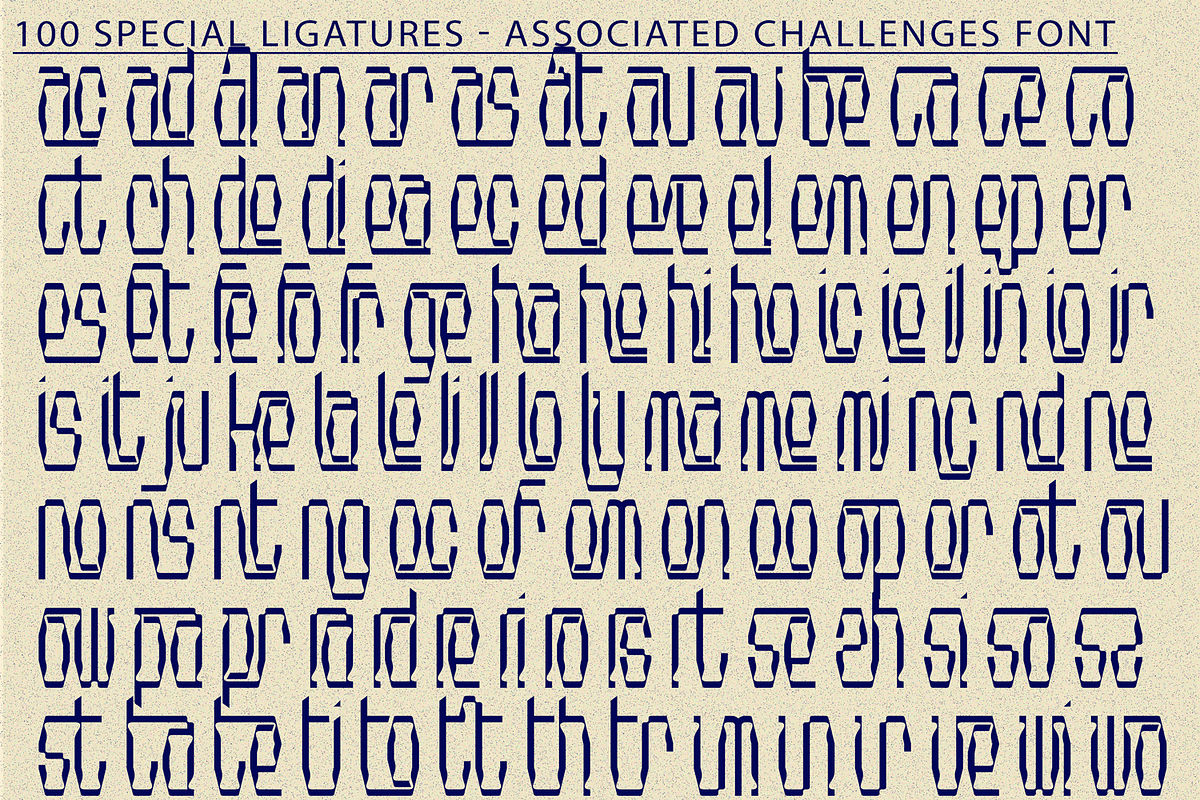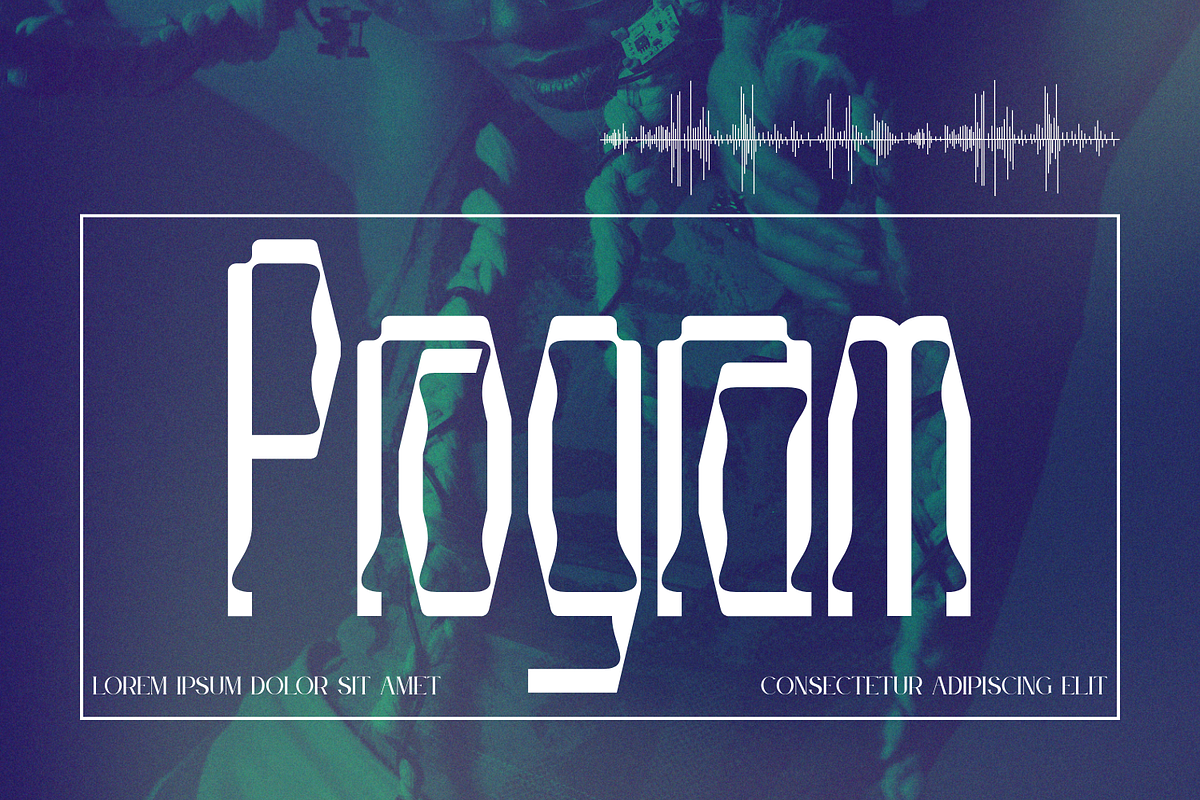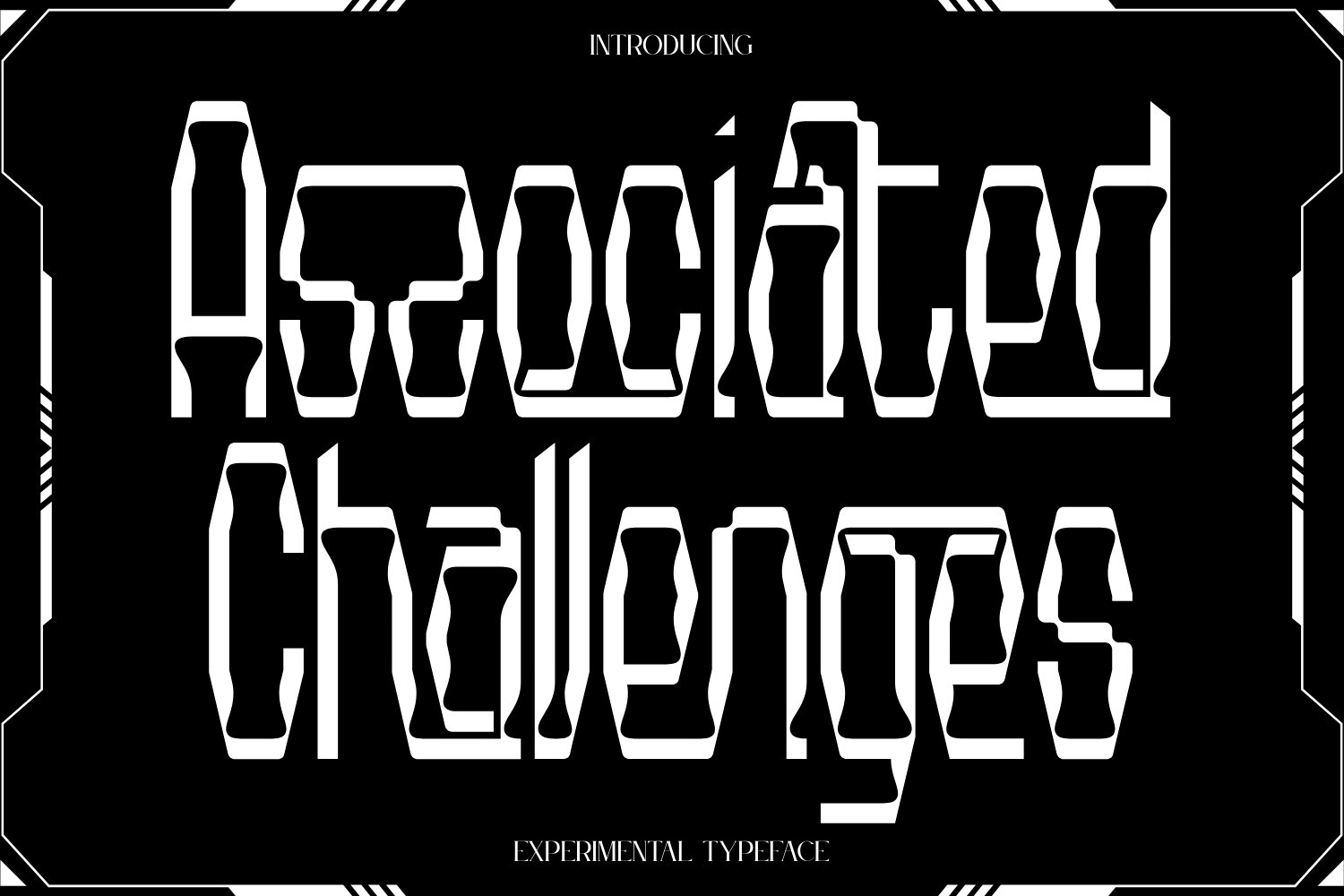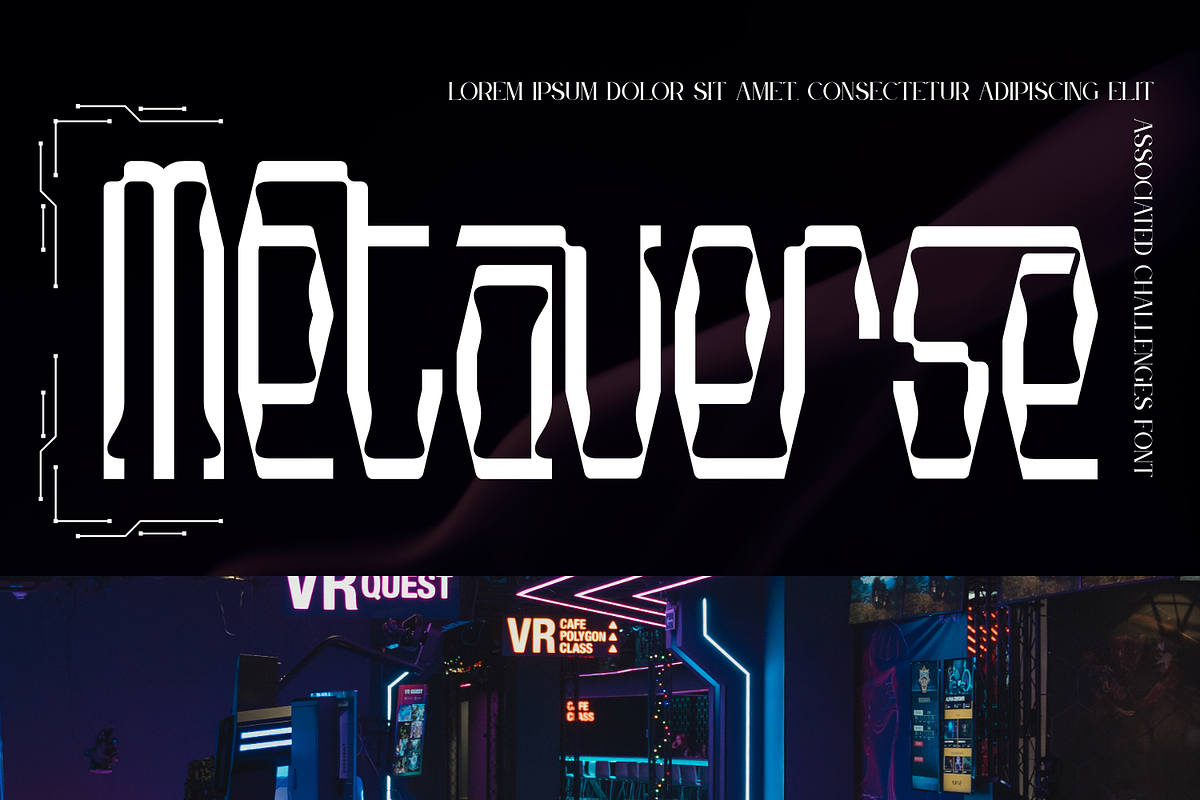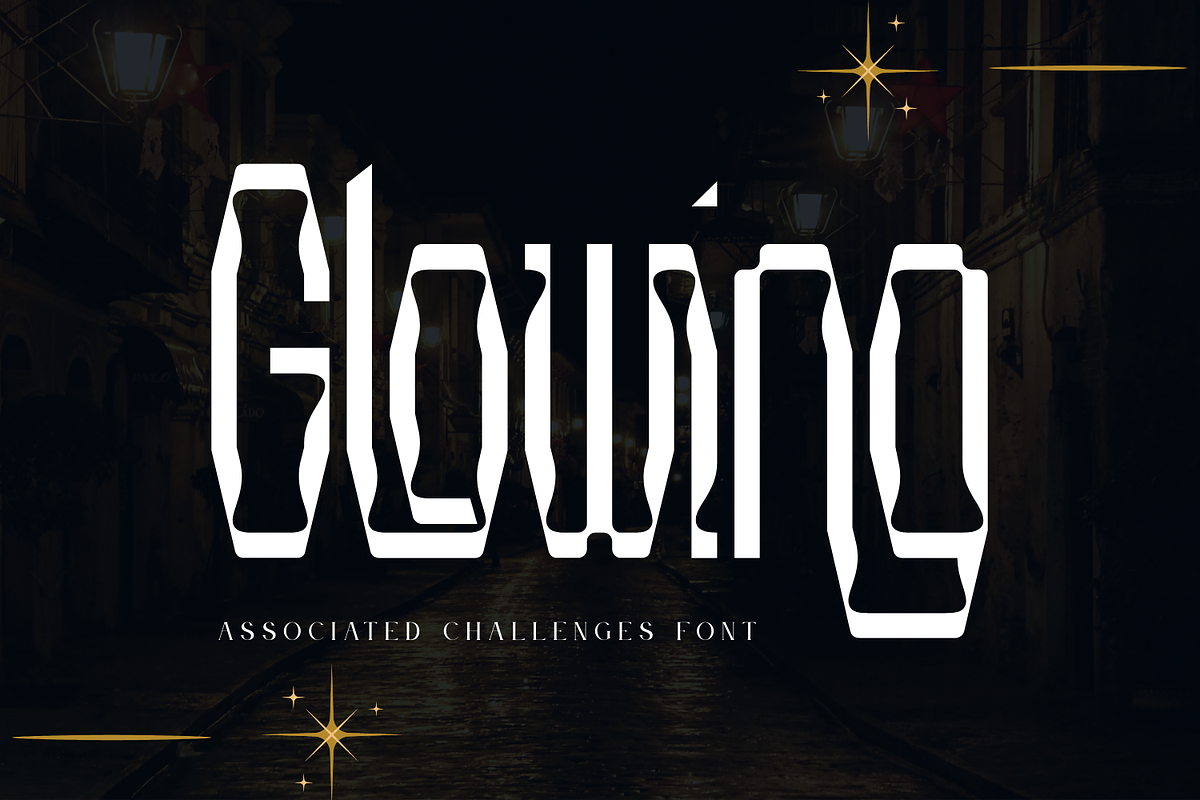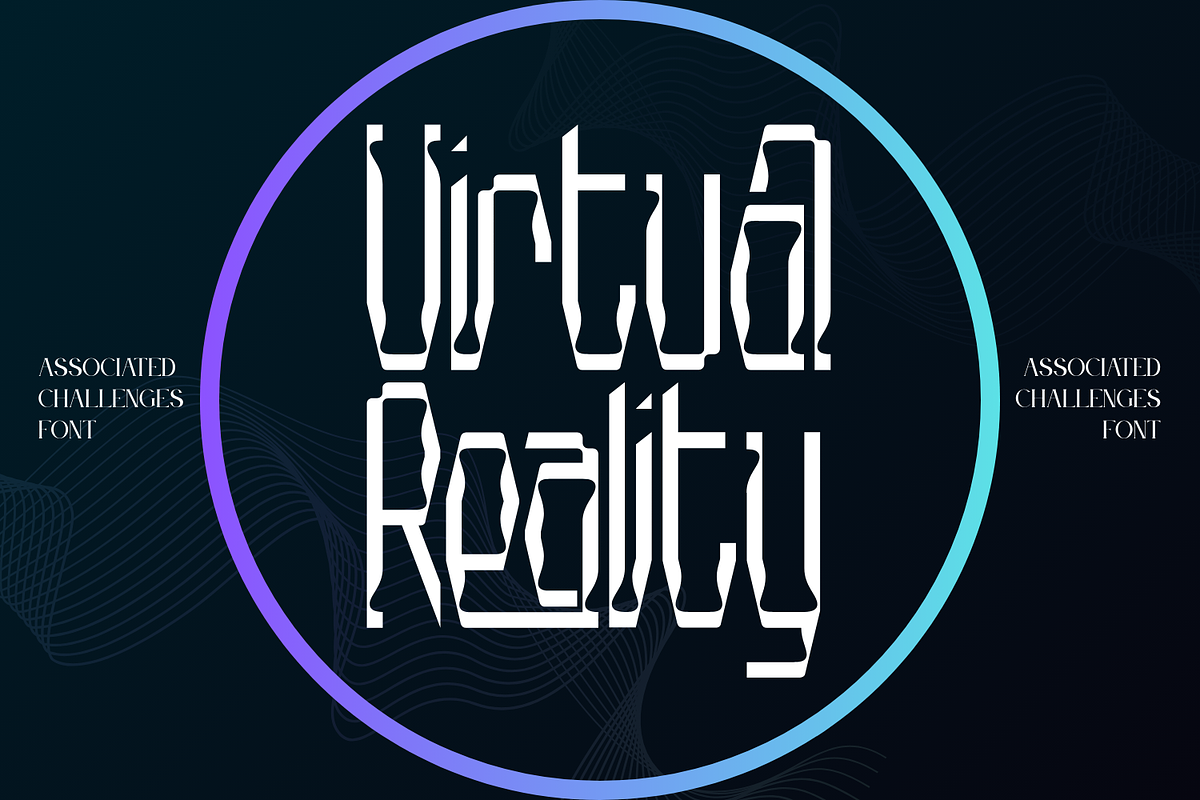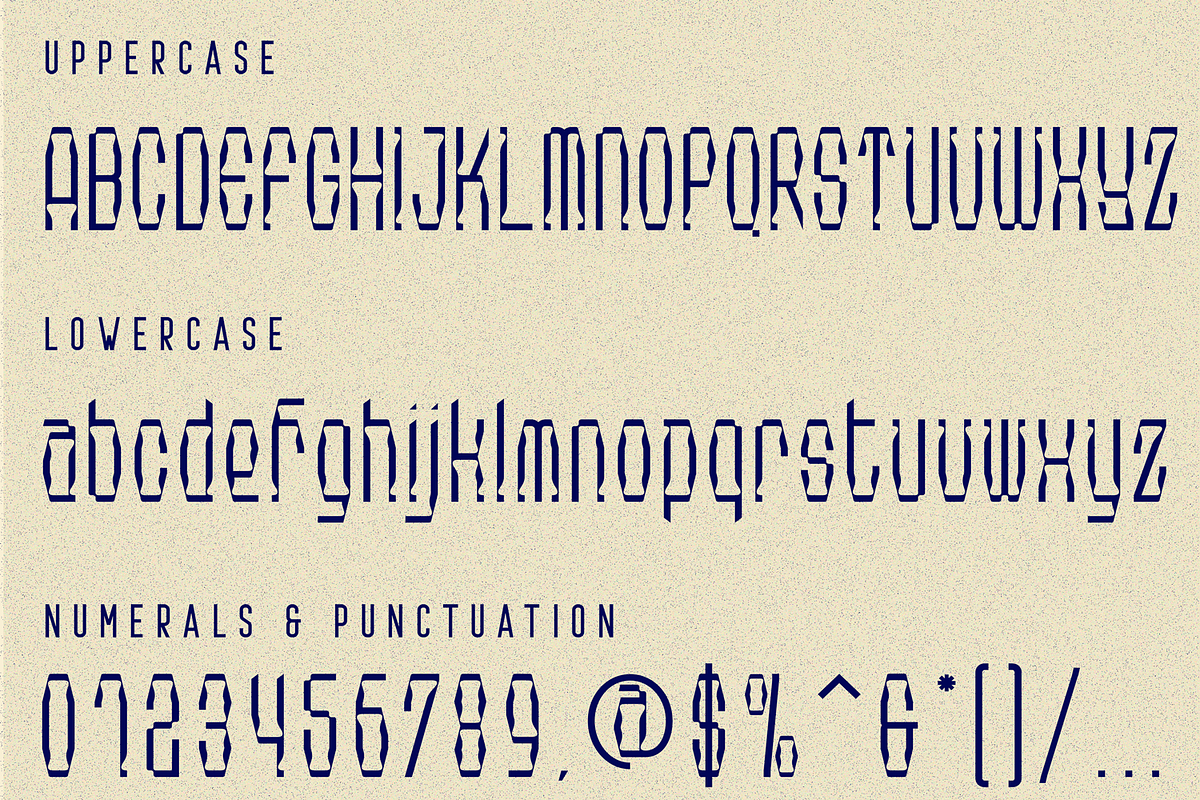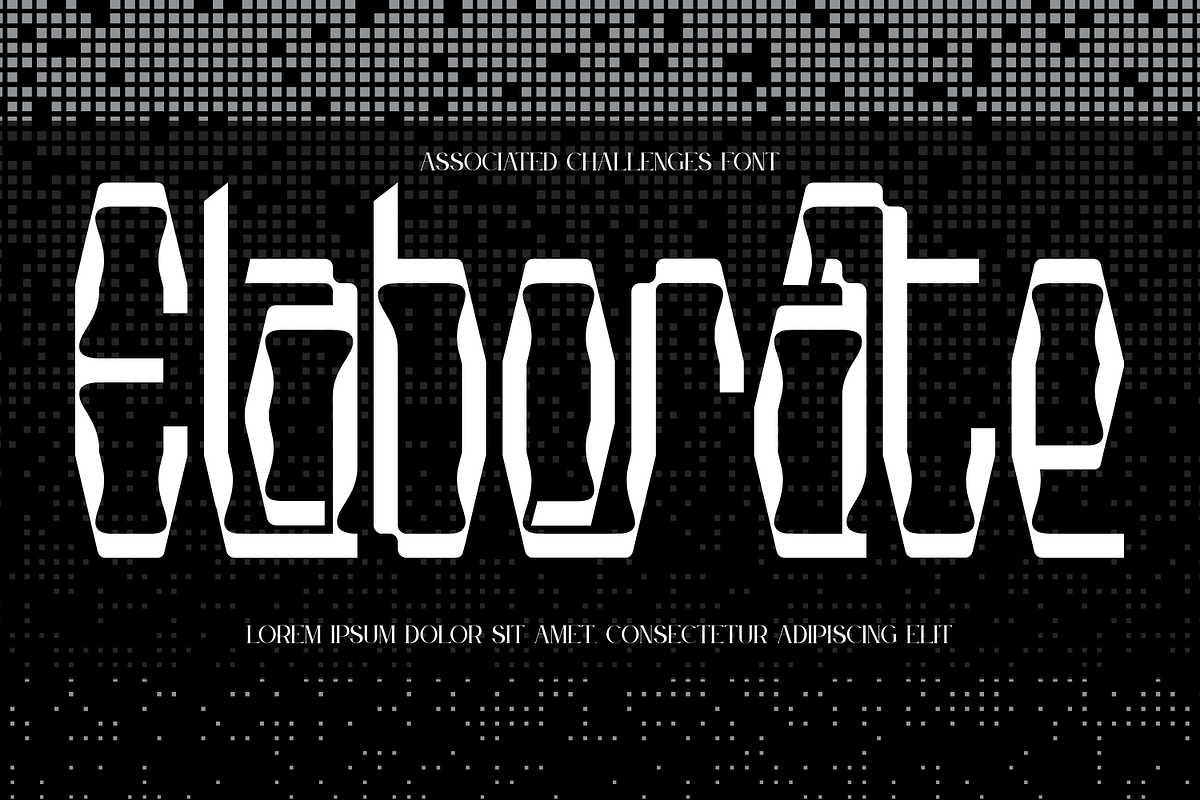
Associated Challenges Font
Associated Challenges Font is an industrial modular display sans serif typeface inspired by mechanical structures and engineered forms. Built from bold geometric components and solid block shapes, this font delivers a strong, technical, and industrial visual identity. Featuring both Uppercase and Lowercase letters, approximately 100 custom special ligatures, complete Numerals & Punctuation, and extensive Accented characters, Associated Challenges enables designers to create powerful, structured, and high-impact typographic compositions. Its modular construction, mechanical details, and bold proportions make it perfect for industrial branding, technology projects, posters, gaming, robotics themes, and futuristic design concepts.
🔤Features:
- Uppercase & Lowercase Letters
- Around 100 Special Ligatures & Alternates
- Accented Characters for multilingual support
🔤About 100 ligatures combined with Stylistic Alternates Font:
ac ad al an ar as at au av be ca ce ch co ct de di ea ec ed ee el em en ep er es et fe fo fr ge ha he hi ho ie ic il in io ir is it ju ke la le li ll lo ly ma me mi nc nd ne ng no nt ns oc of om on oo op or ot ou ow pa pr ra rd re ri ro rs rt se sh si so ss st ta te th ti to tr tt um un ur ve wi wo